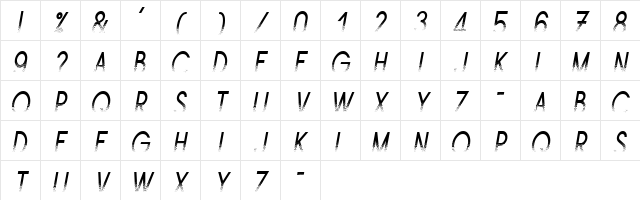
Ams Trame Narrow Italique Free Font
Ams Trame Narrow Italique
Style: Narrow Italique
Design Context for Ams Trame
Ams Trame is a composed and adaptable typeface that performs quietly and consistently across a wide range of design contexts. Its narrow stance lets it pack a punch even in space-constrained designs.